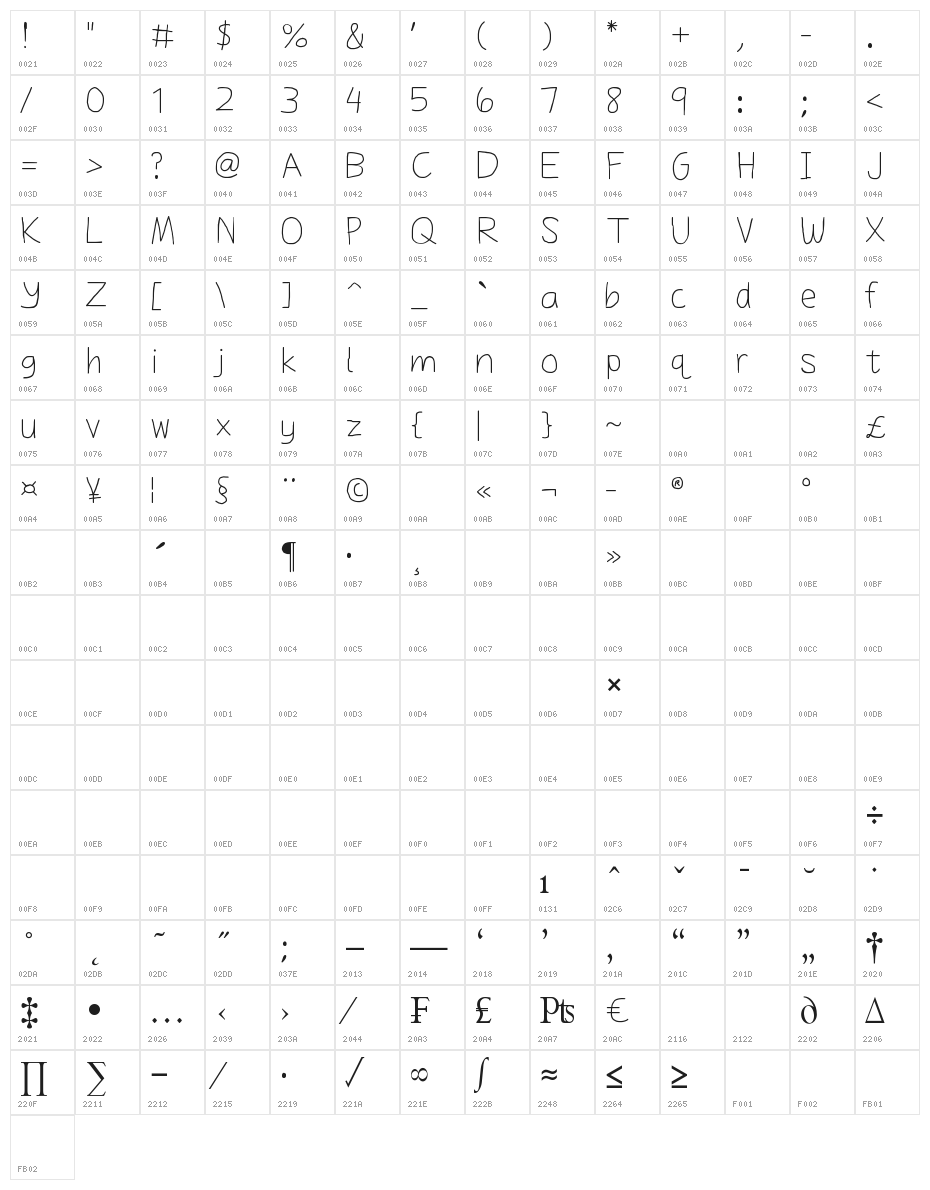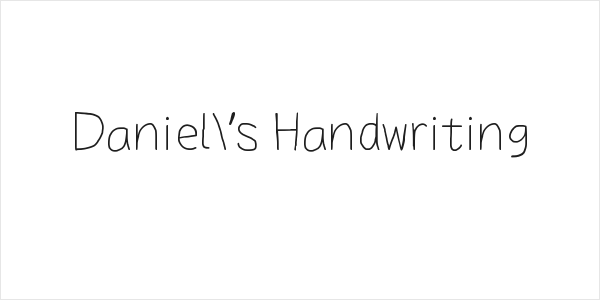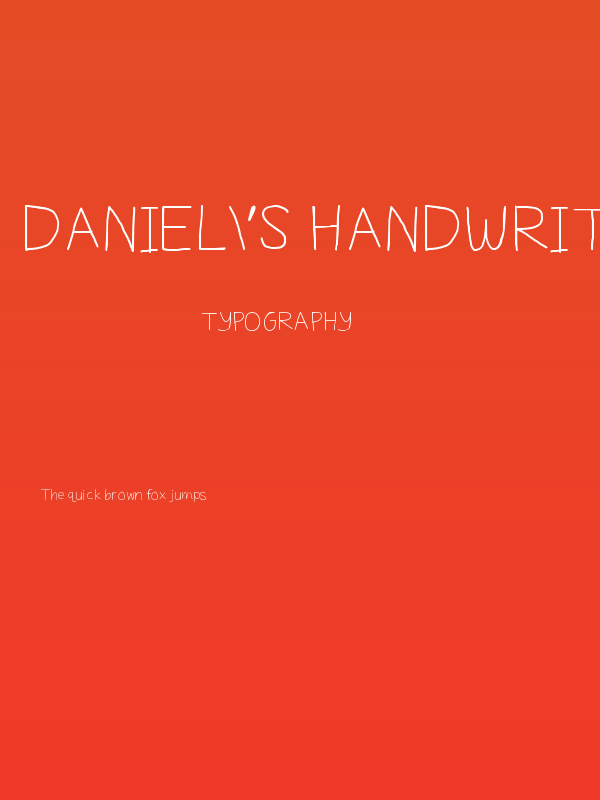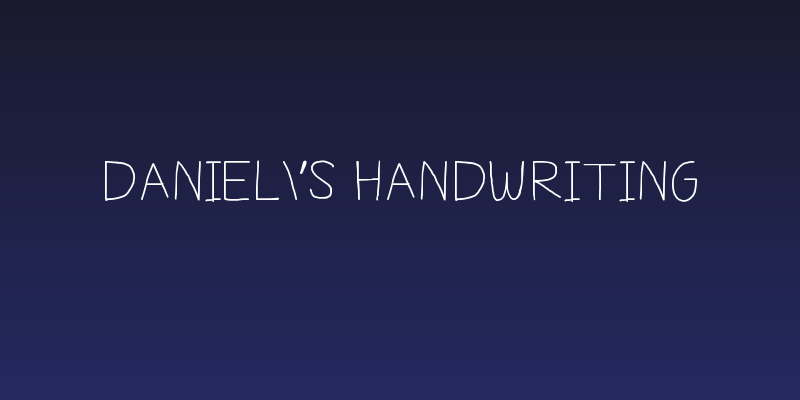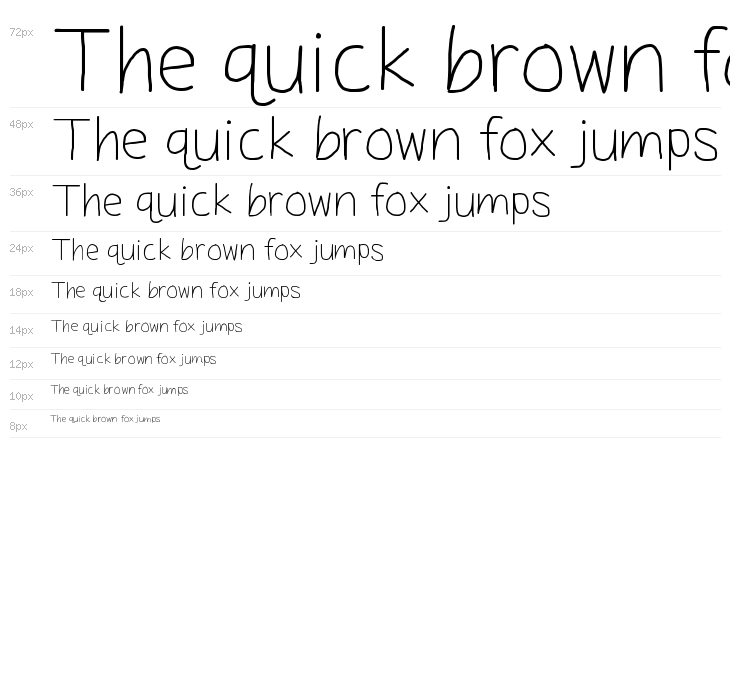
Daniel's Handwriting Font
Daniel's Handwriting Description
This font features a casual, handwritten style that mimics natural penmanship. The characters are slightly irregular, adding a personal and informal touch. The uppercase and lowercase letters maintain a consistent flow, while the numbers and special characters are clear and legible. The strokes are uniform in thickness, contributing to a clean and approachable appearance. This font is ideal for projects that require a friendly and relatable aesthetic.
Overall StyleCasual
Use CaseHeadlines, Informal text, Personal projects
Proposed ProjectsIdeal for personal notes, invitations, greeting cards, and informal branding.